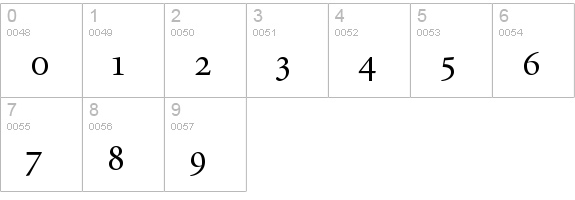
Minion Regular Expert Font Details
Minion Regular Expert is the standard, neutral variant in the Minion typeface family \xE2\x80\x94 well suited to general body text, paragraphs, and standard typographic work.